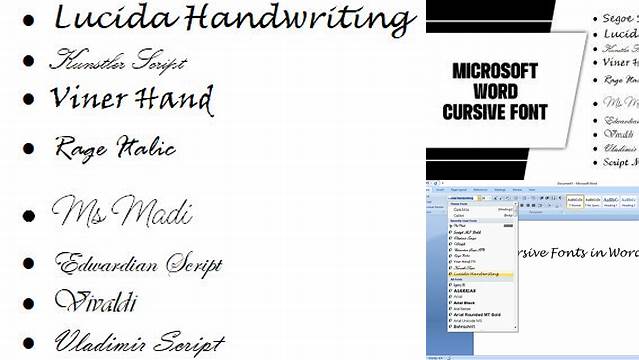
Cursive Fonts In Microsoft Word: A How-To Guide
Hey guys! Ever wanted to add a touch of elegance or personality to your documents? Using cursive fonts in Microsoft Word is a fantastic way to do just that! Whether you're crafting invitations, designing certificates, or simply want your report to stand out, mastering cursive fonts can elevate your work. In this comprehensive guide, we'll walk you through everything you need to know about finding, installing, and effectively using cursive fonts in Microsoft Word. Let's dive in and transform your documents from ordinary to extraordinary!
Finding the Perfect Cursive Font
Finding the right cursive font is the first step in making your document shine. But with so many options available, where do you even start? Don't worry; we've got you covered!
Built-in Cursive Fonts in Word
Microsoft Word comes with a selection of pre-installed fonts that include some cursive options. These are ready to use right out of the box, which is super convenient. To find them:
- Open Microsoft Word: Launch the application on your computer.
- Create a New Document: Start with a blank page to experiment.
- Access the Font Menu: Go to the "Home" tab and look for the font selection box (it usually displays the current font, like Calibri or Arial).
- Browse the Fonts: Click the dropdown arrow to open the full list of fonts. Scroll through the list to find cursive or script-style fonts. Some common ones include Script MT Bold, Brush Script MT, and Bradley Hand ITC. These fonts offer a classic cursive look that can be perfect for various projects.
Experiment with these built-in fonts to see if any of them fit your needs. They are a great starting point and can be used immediately without any extra steps.
Downloading Cursive Fonts
If the built-in options aren't quite what you're looking for, don't sweat it! The internet is brimming with websites offering a vast array of cursive fonts, many of which are free for personal use. Here’s how to find and download them:
- Preview the Font: Before downloading, make sure to preview the font by typing in some sample text. This will give you a good idea of what the font will look like in your documents. Pay attention to the readability and style to ensure it fits your project.
- Restart Word (if necessary): If Microsoft Word was open during the installation, close and reopen it to ensure the new font appears in the font list.
For macOS:
- Open the Font File: Double-click the downloaded font file (.ttf or .otf). This will open the Font Book application.
- Install the Font: In Font Book, click the "Install Font" button at the bottom of the window. macOS will install the font.
- Restart Word (if necessary): Similar to Windows, restart Microsoft Word if it was running during the installation to refresh the font list.
After following these steps, the new cursive font should now be available in Microsoft Word. Time to put it to use!
Using Cursive Fonts Effectively in Microsoft Word
Okay, now that you’ve got your cursive fonts installed, let's talk about how to use them effectively. Just because you can use a fancy font doesn’t mean you should use it everywhere. Here are some tips to make the most of your cursive fonts:
Choosing the Right Context
Cursive fonts are excellent for adding a touch of elegance, personalization, or creativity, but they're not always suitable for every situation. Here are some contexts where cursive fonts work well:
- Invitations: Cursive fonts can make invitations for weddings, parties, and other special events look more sophisticated and personal.
- Certificates and Awards: Adding a cursive font to a certificate can give it a formal and distinguished appearance.
Using cursive fonts in Microsoft Word can add a touch of elegance and personality to your documents, making them stand out. By following this guide, you can find, install, and effectively use cursive fonts to enhance your projects. Remember to choose the right context, pay attention to font size and spacing, and maintain consistency throughout your document. With a little practice, you'll be creating beautiful and professional-looking documents in no time. Go ahead and experiment with different cursive fonts to find the perfect one for your needs. Happy writing, guys!